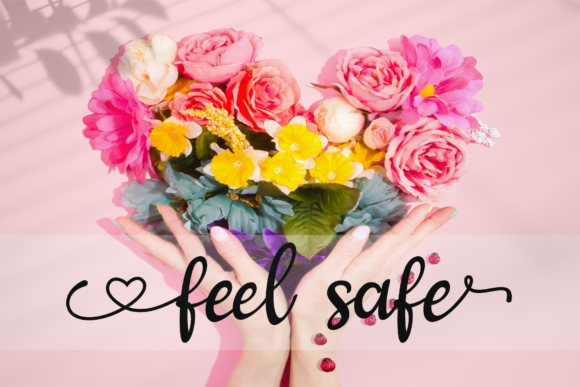
Love and Heart Font
db-ku.com - Script & Handwritten -- Love and Heart is a sweet, soft hand-lettered handwritten font. The playful rounded characters make it the perfect font for creating amazing designs. Fall in love with its authentic feel and use it to create gorgeous wedding invitations, beautiful stationary art, eye-catching social media posts, and cute greeting cards.